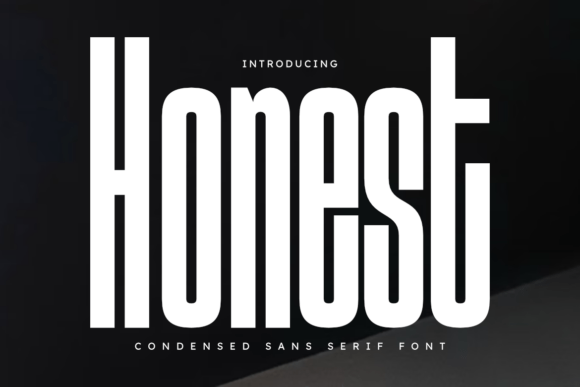
Introducing Honest Font: The Ultimate Choice for Modern and Confident Designs
In the world of typography, fonts play a crucial role in conveying the tone and personality of a brand or design. With the numerous font options available, finding the perfect one that exudes confidence, modernity, and elegance can be a daunting task. However, if you’re looking for a font that ticks all these boxes, look no further than Honest Font. In this article, we’ll delve into the features, benefits, and uses of Honest Font, and explore why it’s an excellent choice for designers seeking a sleek and sophisticated typographic solution.
What is Honest Font?
Honest Font is a tall and sleek condensed sans serif font designed specifically for modern and confident designs. Its bold vertical structure and clean lines make it an ideal choice for a wide range of applications, from magazine titles and posters to branding, logos, packaging, and headlines. With its elegant and streamlined aesthetic, Honest Font is perfect for designers seeking to create a strong visual presence in their compositions.
Key Features of Honest Font
- Condensed Sans Serif: Honest Font features a condensed sans serif design, making it perfect for use in titles, headings, and other applications where space is limited.
- Tall and Sleek: With its tall and sleek structure, Honest Font exudes confidence and modernity, making it an excellent choice for designs that require a strong visual presence.
- Bold Vertical Structure: The bold vertical structure of Honest Font adds to its elegance and sophistication, making it perfect for luxury-themed designs.
- Clean Lines: The clean lines of Honest Font ensure that it remains legible even at smaller font sizes, making it versatile for use in various design applications.
Benefits of Using Honest Font
So, why choose Honest Font for your design projects? Here are some benefits that make it an excellent choice:
- Elegance and Sophistication: Honest Font adds a touch of elegance and sophistication to any design, making it perfect for luxury-themed projects.
- Versatility: With its clean lines and bold structure, Honest Font is versatile enough to be used in a wide range of design applications, from minimal to luxury-themed designs.
- Legibility: The clean lines and simple design of Honest Font ensure that it remains legible even at smaller font sizes, making it perfect for use in body text and captions.
- Time-Saving: With Honest Font, designers can save time and effort in creating custom typography, allowing them to focus on other aspects of the design.
Use Cases for Honest Font
So, where can you use Honest Font? The answer is: almost anywhere! Here are some popular use cases for this versatile font:
- Magazine Titles: Honest Font is perfect for magazine titles, adding a touch of elegance and sophistication to any publication.
- Posters: With its bold structure and clean lines, Honest Font is an excellent choice for posters, making it perfect for advertising and promotional materials.
- Branding and Logos: Honest Font is an excellent choice for branding and logos, providing a strong visual presence that can help establish a brand’s identity.
- Packaging: The clean lines and elegant design of Honest Font make it perfect for packaging design, adding a touch of sophistication to any product.
- Headlines: Honest Font is perfect for headlines, providing a strong visual presence that can help grab the attention of readers.
Design Tips for Using Honest Font
To get the most out of Honest Font, here are some design tips to keep in mind:
- Pair with Other Fonts: Honest Font pairs well with other fonts, especially those with a more playful or cursive design. Experiment with different font combinations to find the perfect match.
- Experiment with Colors: Honest Font looks great in a variety of colors, from bold and bright to subtle and muted. Experiment with different colors to find the perfect match for your design.
- Use it Sparingly: While Honest Font is elegant and sophisticated, it can be overwhelming if used excessively. Use it sparingly to create a strong visual presence without overwhelming the reader.
In conclusion, Honest Font is an excellent choice for designers seeking a modern, confident, and elegant typographic solution. With its bold vertical structure, clean lines, and condensed sans serif design, Honest Font is perfect for a wide range of design applications, from magazine titles and posters to branding, logos, packaging, and headlines. Whether you’re working on a minimal or luxury-themed design, Honest Font delivers elegance and impact in every composition.
- What is Honest Font? Honest Font is a tall and sleek condensed sans serif font designed for modern and confident designs.
- What are the key features of Honest Font? The key features of Honest Font include its condensed sans serif design, tall and sleek structure, bold vertical structure, and clean lines.
- What are the benefits of using Honest Font? The benefits of using Honest Font include its elegance and sophistication, versatility, legibility, and time-saving capabilities.
- Where can I use Honest Font? Honest Font can be used in a wide range of design applications, including magazine titles, posters, branding, logos, packaging, and headlines.